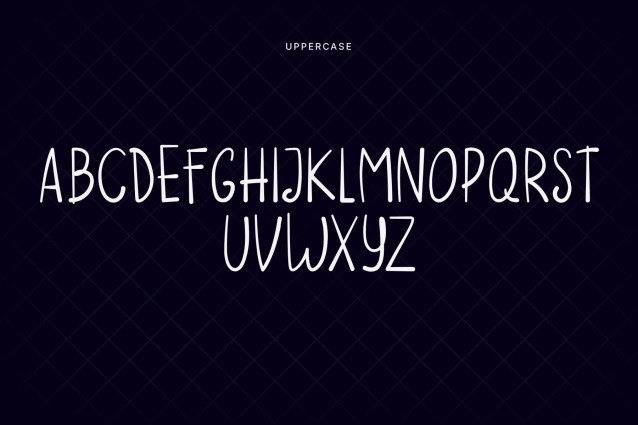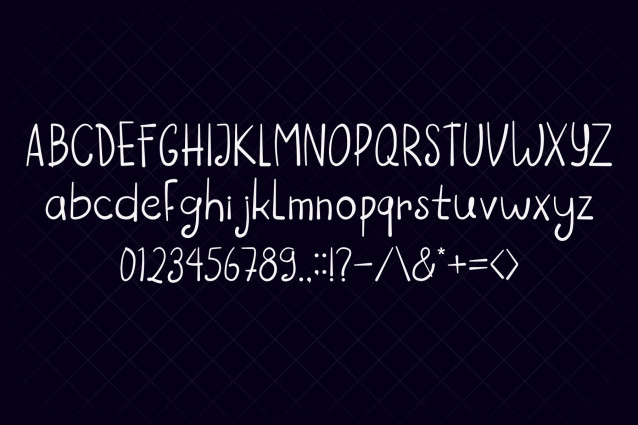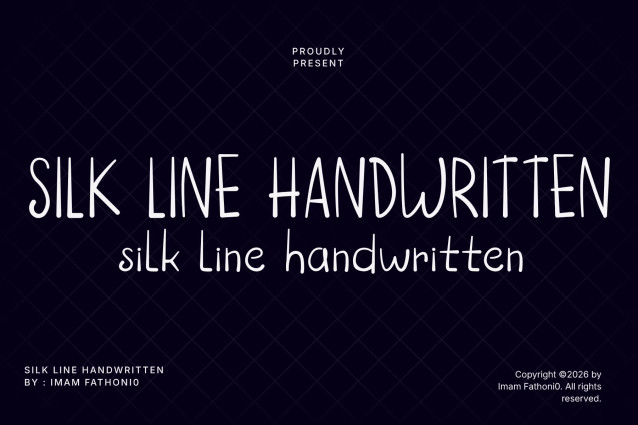
Silk Line Handwritten Font
Bring soft minimalist charm, delicate penmanship, and effortless hand-lettered poise to your layouts with SILK LINE HANDWRITTEN! This light handwritten font features clean monoline strokes, tall condensed uppercase proportions, and smooth rounded terminals. Its gentle, organic style provides a sweet, authentic feel while maintaining exceptional clarity across both titles and body text.
Ideal for digital planners, bullet journal stickers, aesthetic quote prints, minimalist packaging, boutique branding, greeting cards, and custom Cricut or Silhouette craft SVG projects!